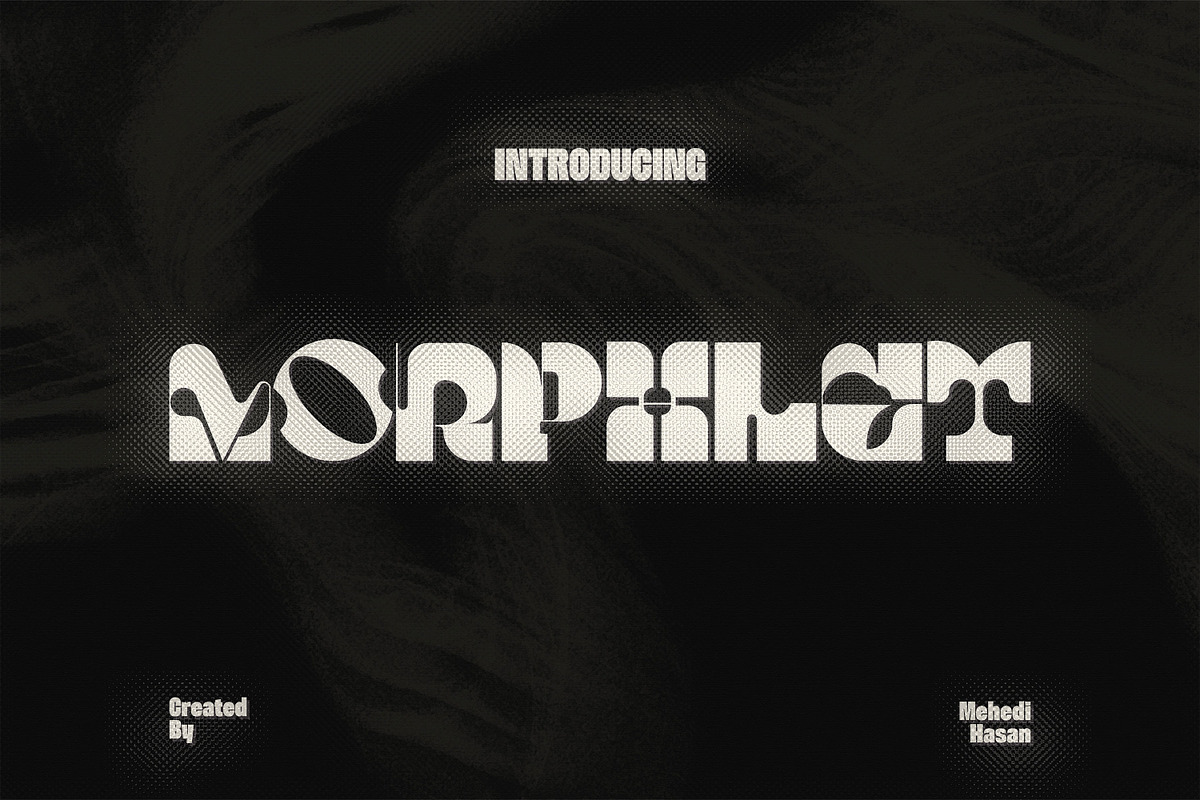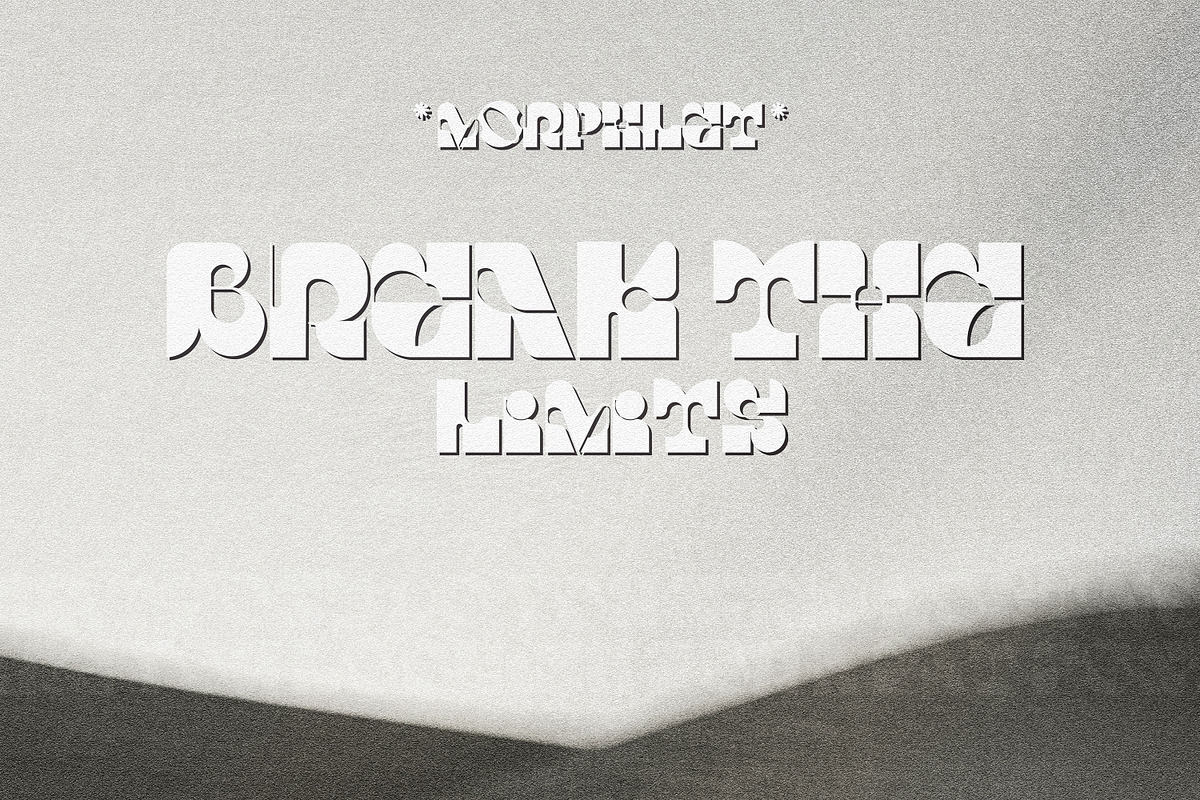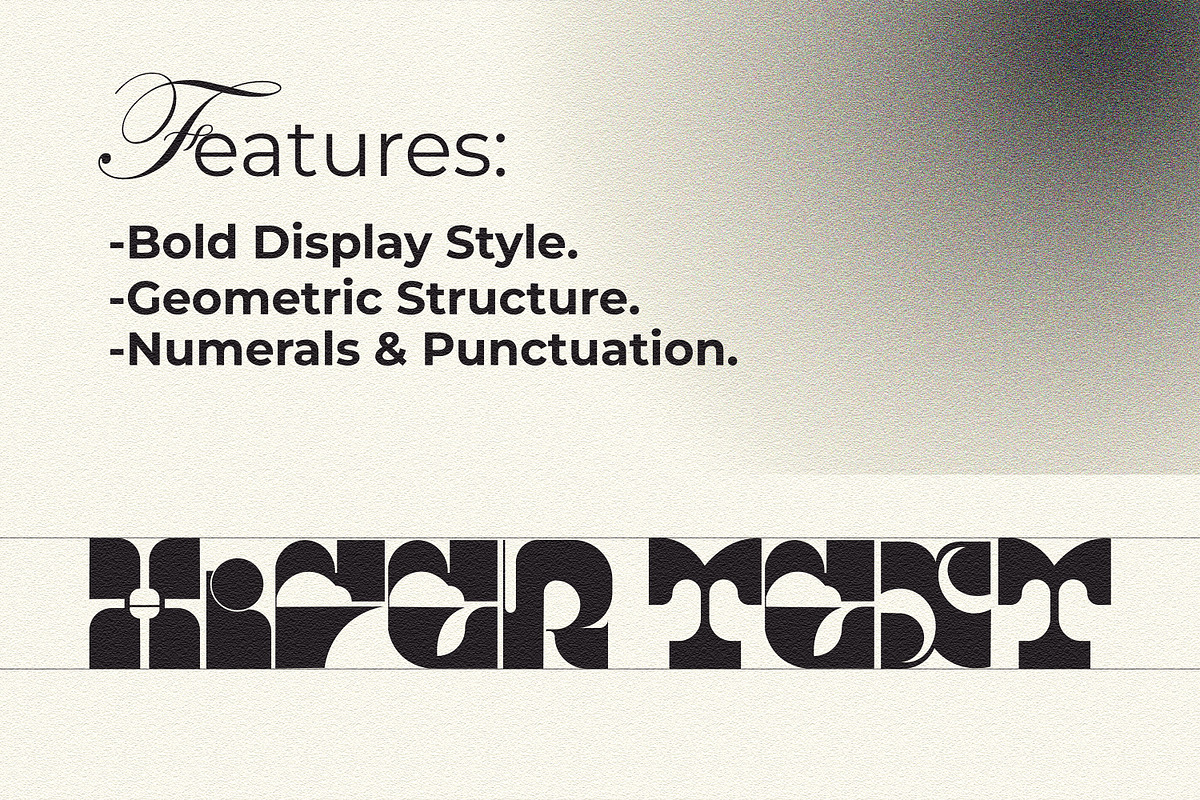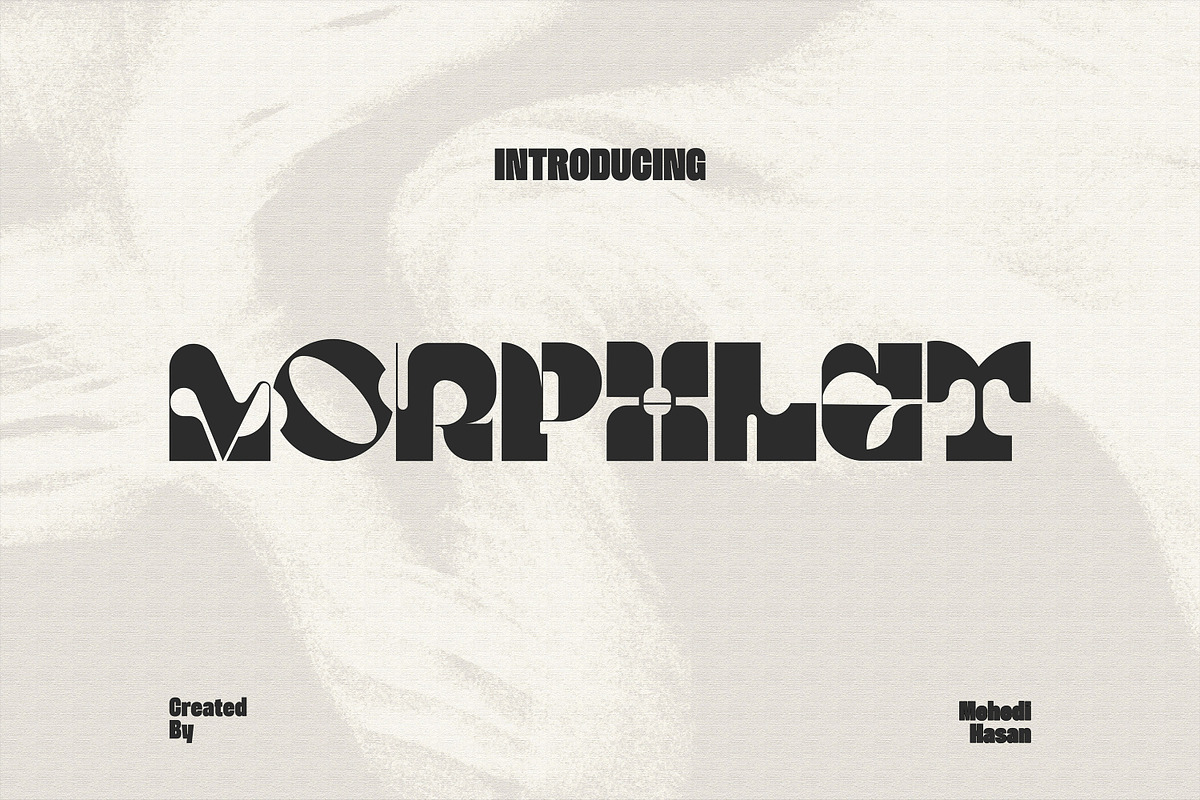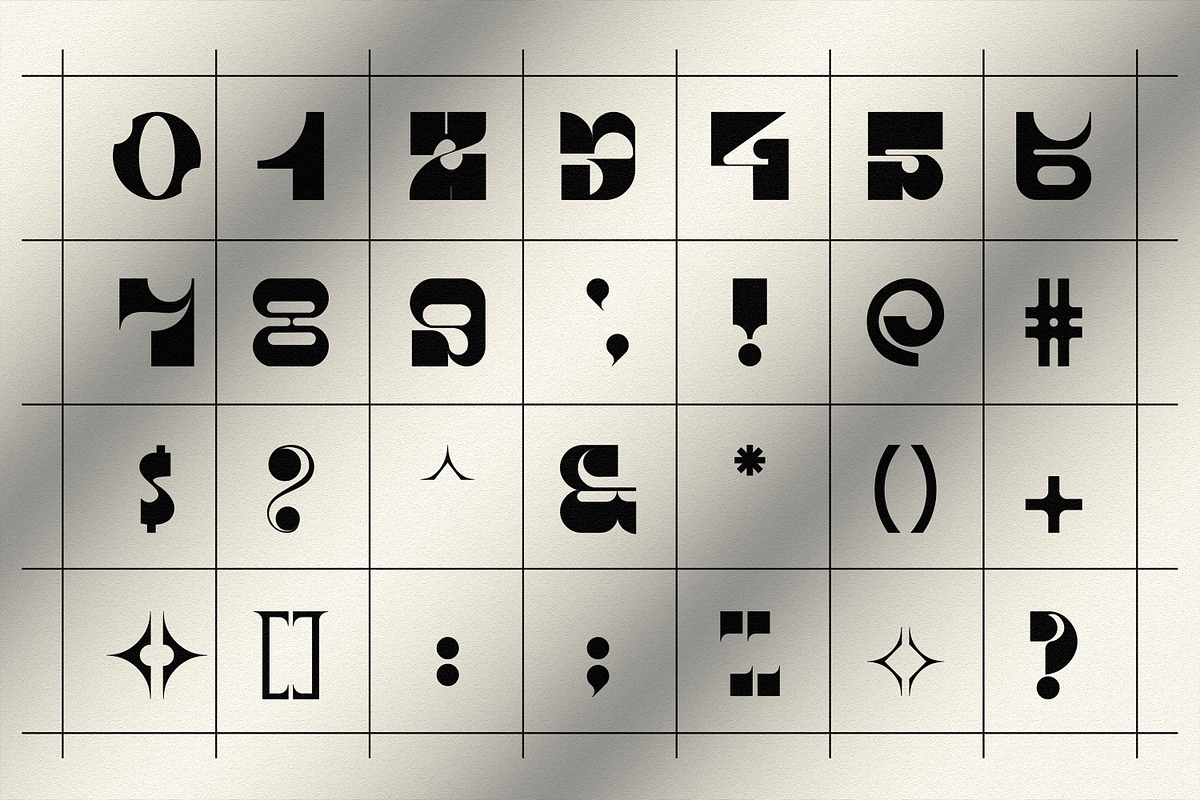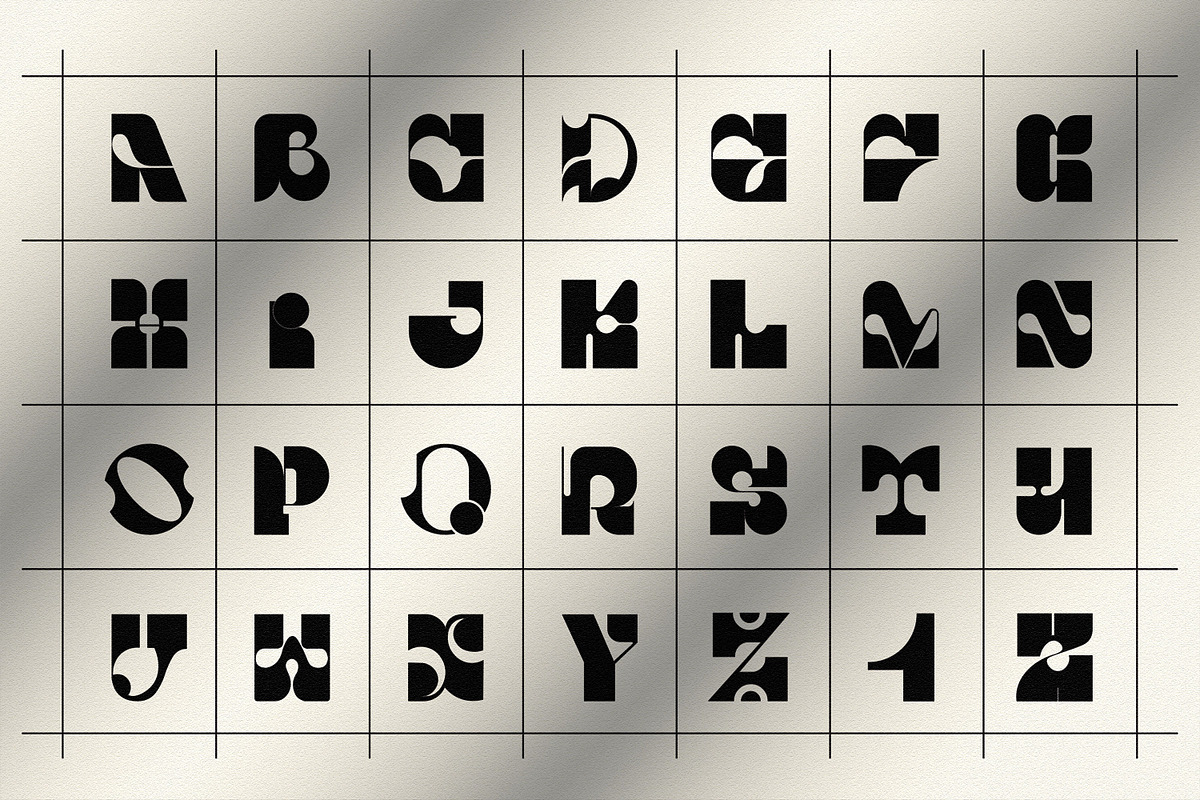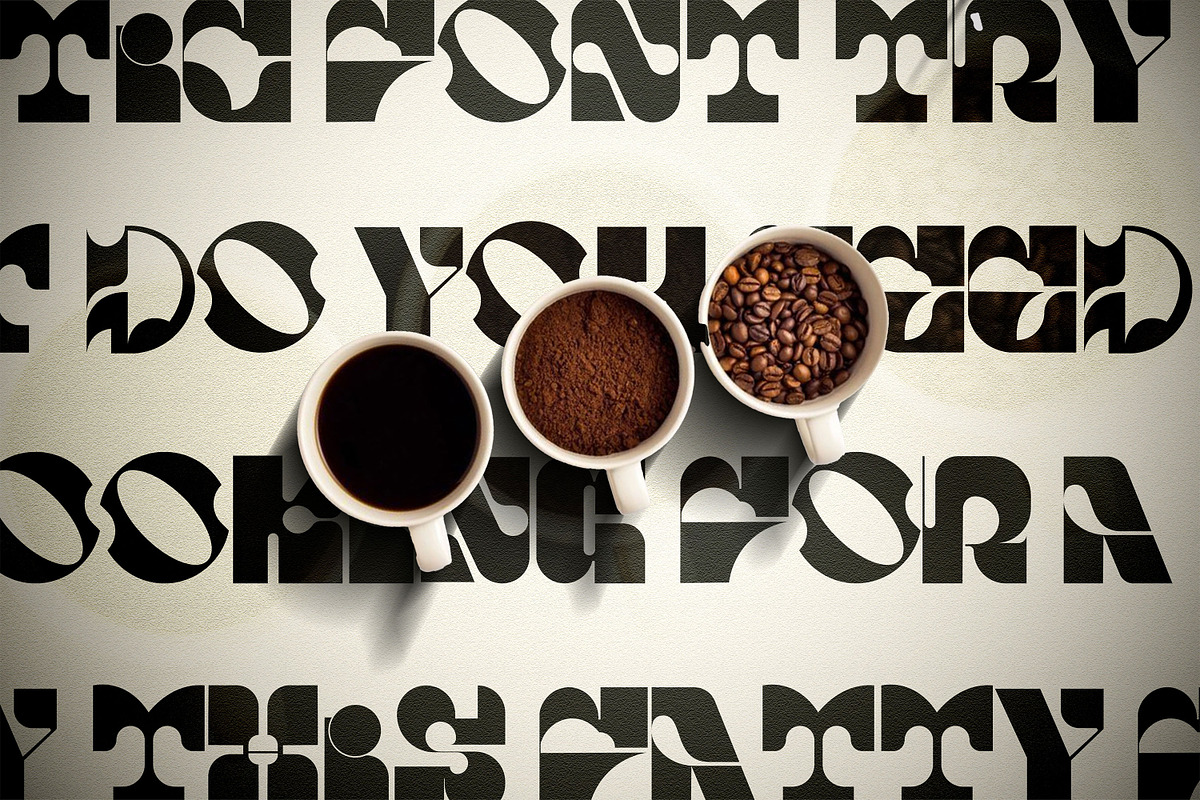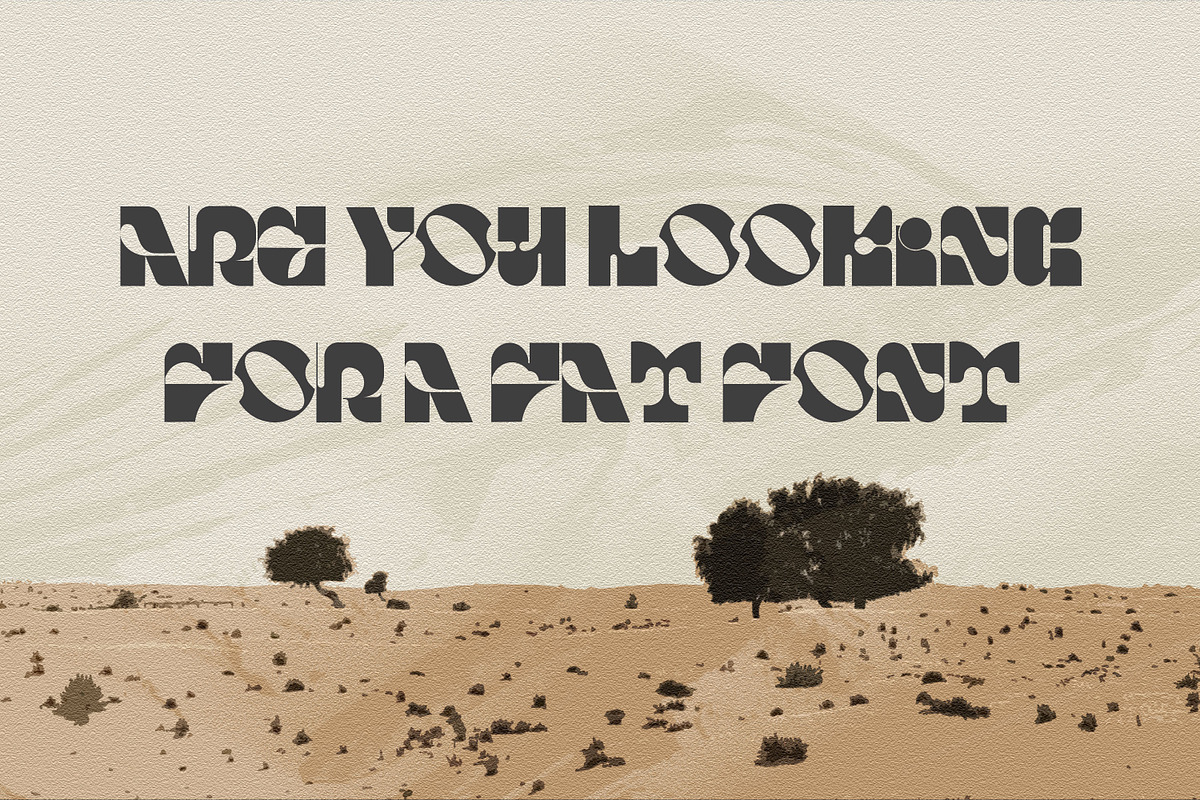
Display Morphlet Font.
Morphlet – Modern Bold Display Typeface
Introducing Morphlet , a modern bold display font that radiates strength, confidence, and simplicity. Designed with geometric shapes and powerful curves, Morphlet delivers a timeless aesthetic that stands out in any visual composition. Every letterform in Morphlet is crafted to command attention — making it the perfect choice for logos, headlines, and impactful branding projects. The strong and balanced proportions create a sense of modern elegance while maintaining a bold and friendly personality.
Uppercase. Numerals & Punctuation. Geometric Structure. Bold Display Style.
Who Should Use Morphlet?
Morphlet is perfect for designers, brands, and creatives who want to make a bold, modern statement in their visual work. Whether you’re crafting a sleek logo or designing packaging that pops, Morphlet’s confident letterforms help your designs feel strong, stylish, and memorable.
This font is ideal for:
Brand designers looking for a bold and timeless display typeface. Creative studios that want to build strong visual identities. Marketing teams aiming to create eye-catching campaigns. Packaging designers who need a standout, modern font. Web and UI designers seeking a striking headline font. A Must-Have Font for "Brand and Logo" Creators and Designers
Morphlet is a powerful bold display font that instantly commands attention. Designed with clean curves and modern proportions, it delivers a perfect balance between strength and style, making it ideal for any brand or logo that needs to stand out. Whether you’re crafting a contemporary brand identity, building a vibrant packaging design, or creating bold marketing visuals, Morphlet ensures your typography looks confident and unforgettable.
Why Choose Morphlet for "Brand and Logo" Projects?
Bold and Eye-Catching: Morphlet’s thick, confident letterforms instantly draw attention, making your brand identity stand out effortlessly.
Modern and Clean: Designed with smooth curves and strong geometry for a fresh, contemporary look. Versatile Use: Works beautifully across print and digital — from packaging and posters to logos and social media. Timeless Appeal: Combines boldness with minimalism, ensuring your designs remain relevant and stylish over time. Perfect Readability: Despite its heavy weight, Morphlet maintains clarity and balance, ideal for impactful headlines and brand marks. Suitable For: